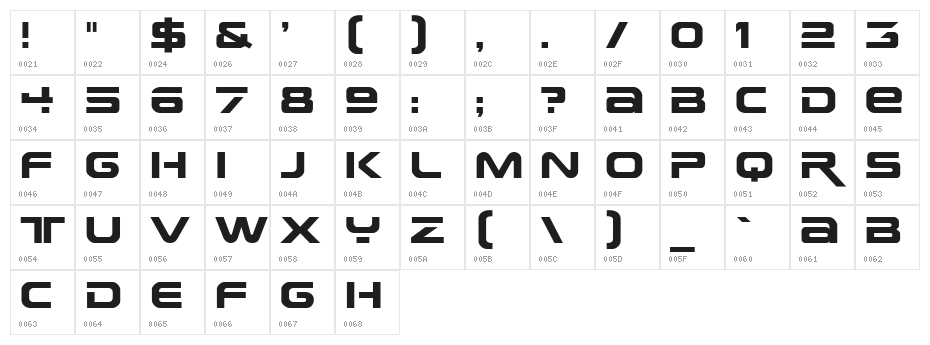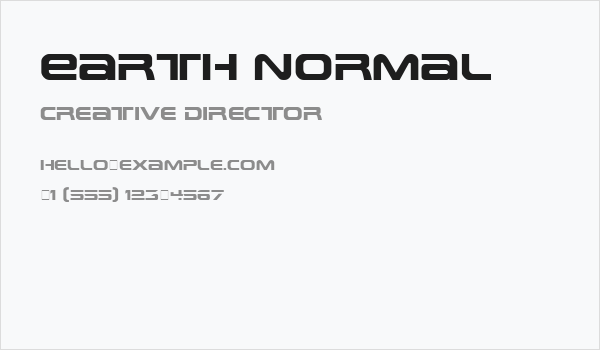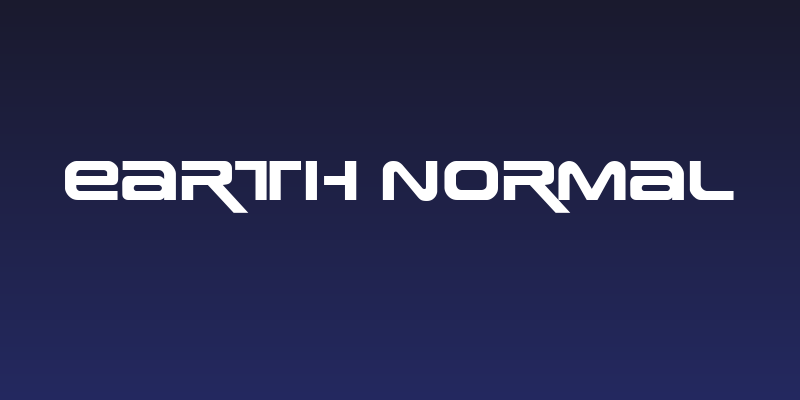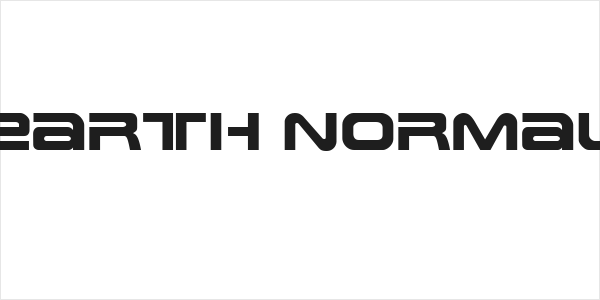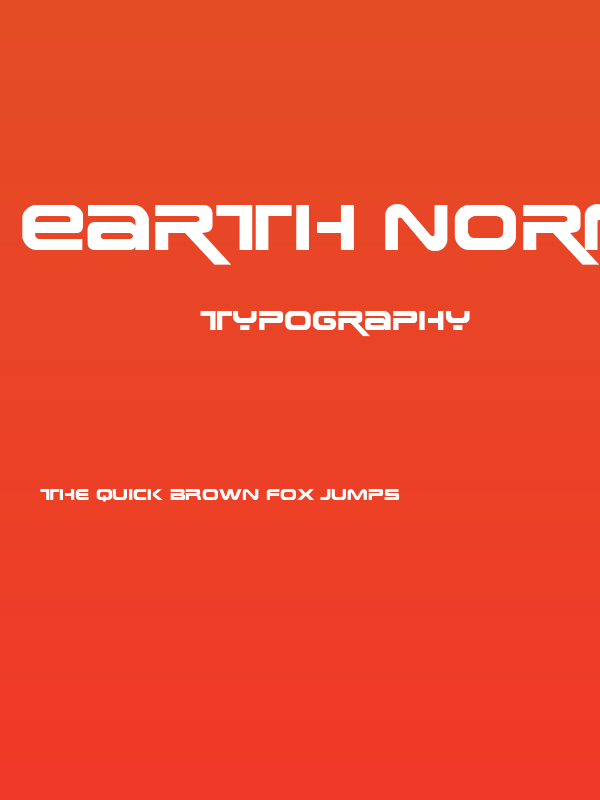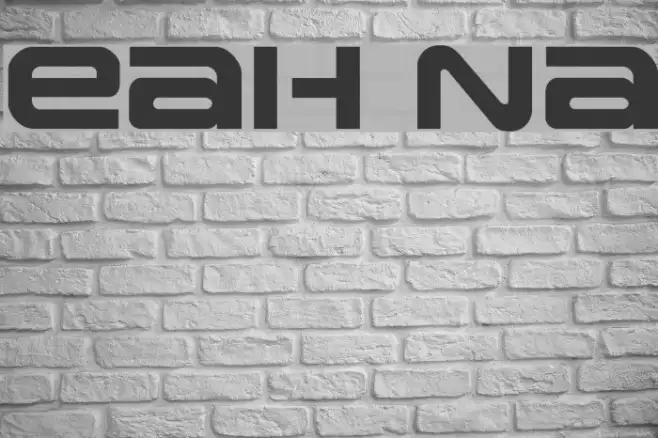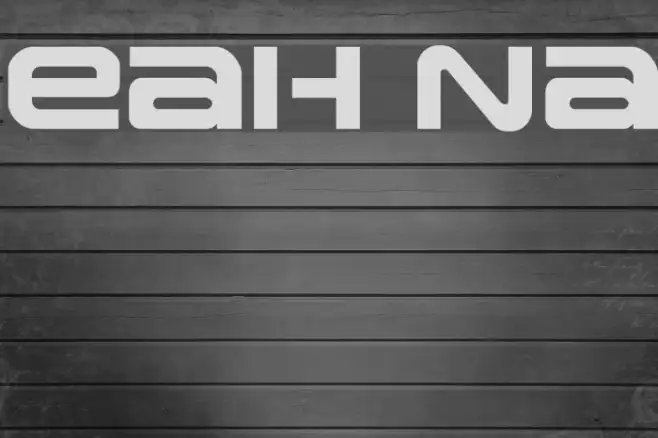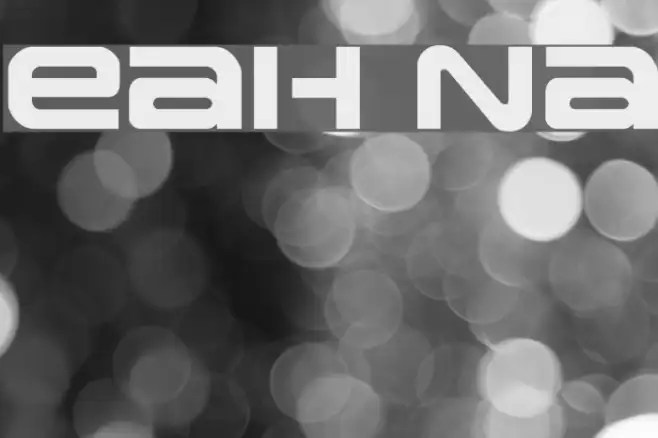
Earth Normal Font
Earth Normal Description
This font features a futuristic and geometric design, characterized by its bold and angular letterforms. The uppercase and lowercase letters maintain a consistent style, with sharp edges and a modern aesthetic. The numerals are distinct and align well with the overall design, offering a cohesive look. Special characters are designed to complement the font's angular nature, making it suitable for projects that require a modern and tech-inspired feel. The font's structure is clean and precise, ideal for creating impactful headlines or logos.
| Proposed Projects | Ideal for technology branding, sci-fi themed designs, video game interfaces, and modern advertising. |